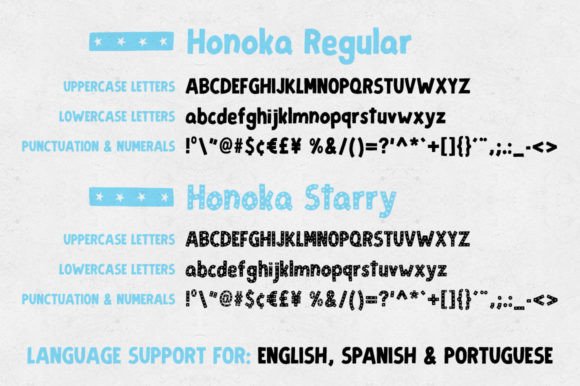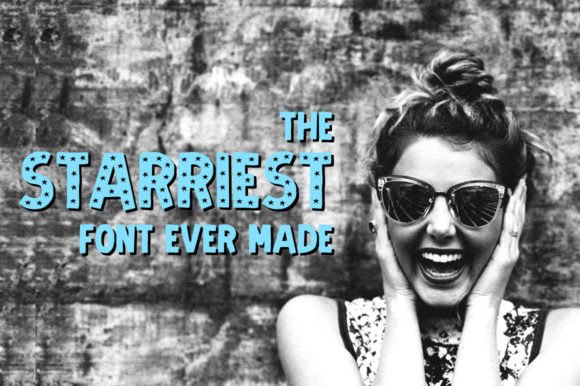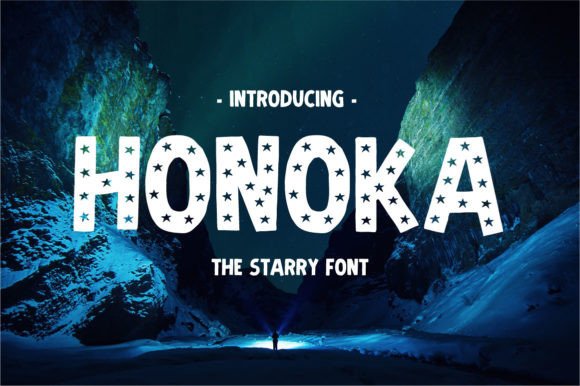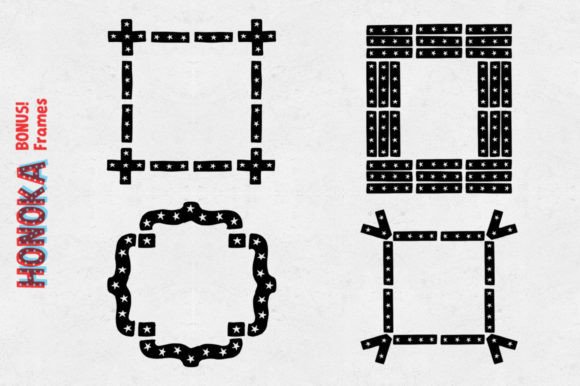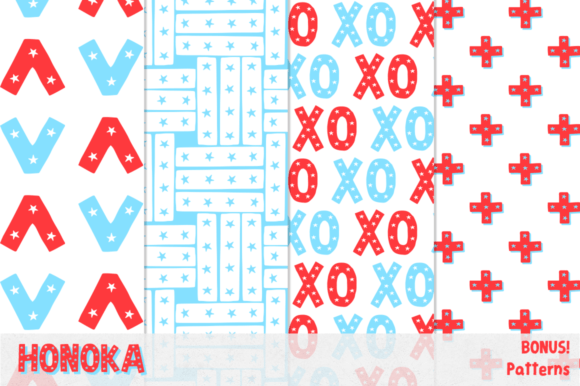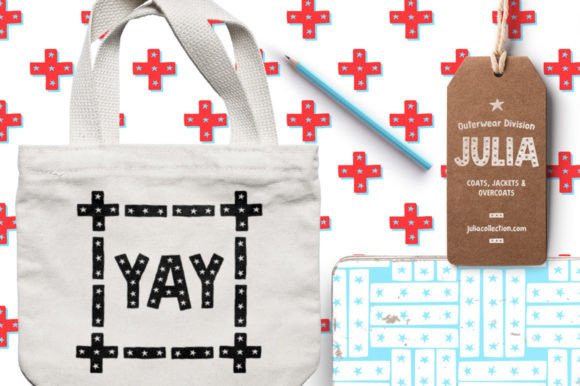
Introduction to Honoka Font
This fun handmade display font includes 2 different styles (regular and starry) for you to mix and match on all kinds of designs.
This font is amazing for kids and teens related projects and also for scrapbooking, branding, websites, digital media, packaging design, greetings, apparel, merchandise, notebooks, envelopes, phone wallpapers and personal cards, invitations, postcards, calendars, wrapping papers and more Plus, itโs great for stickers, planners, posters, and logos.